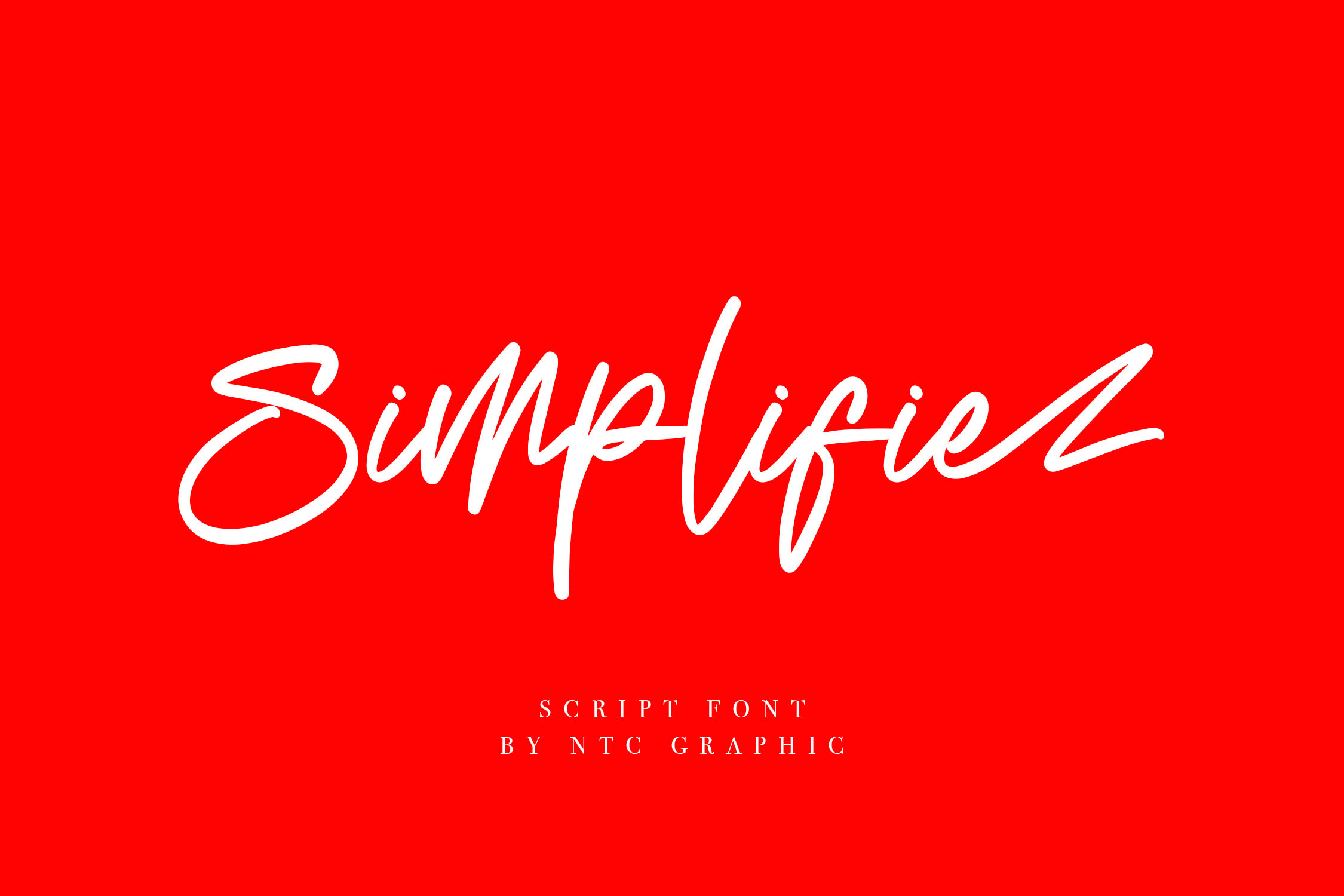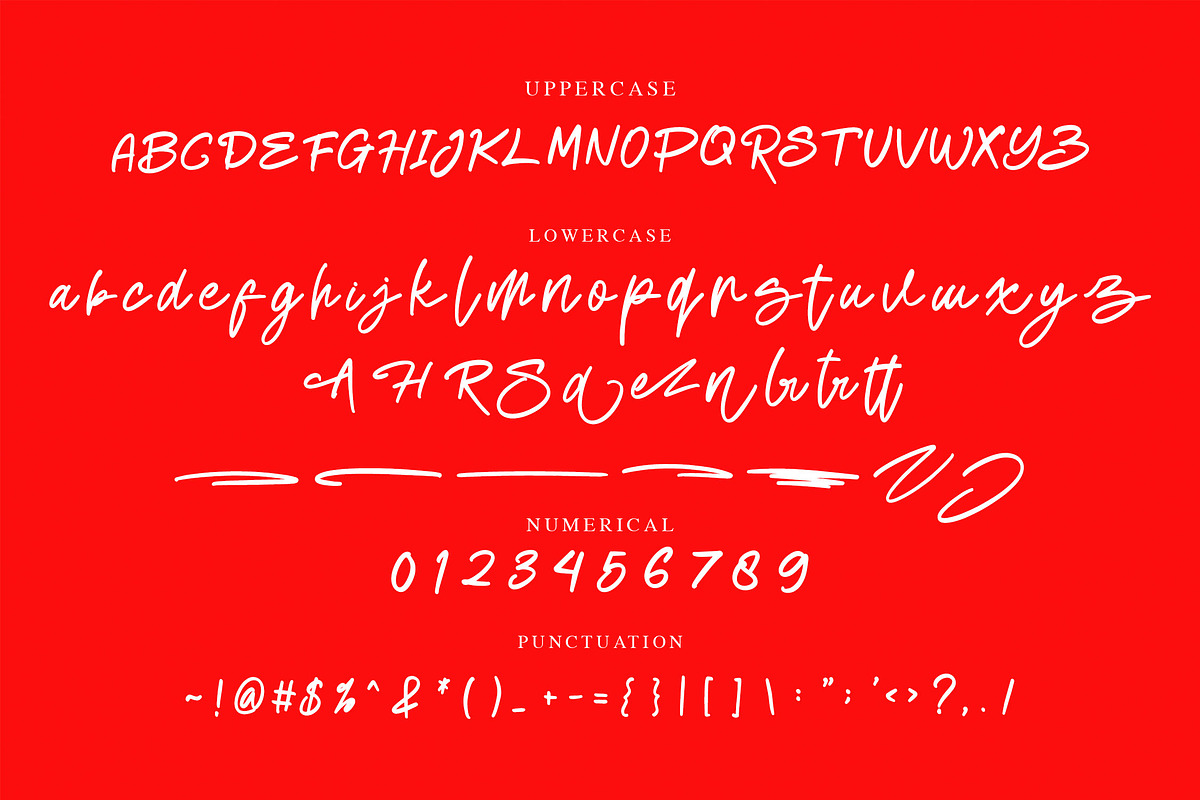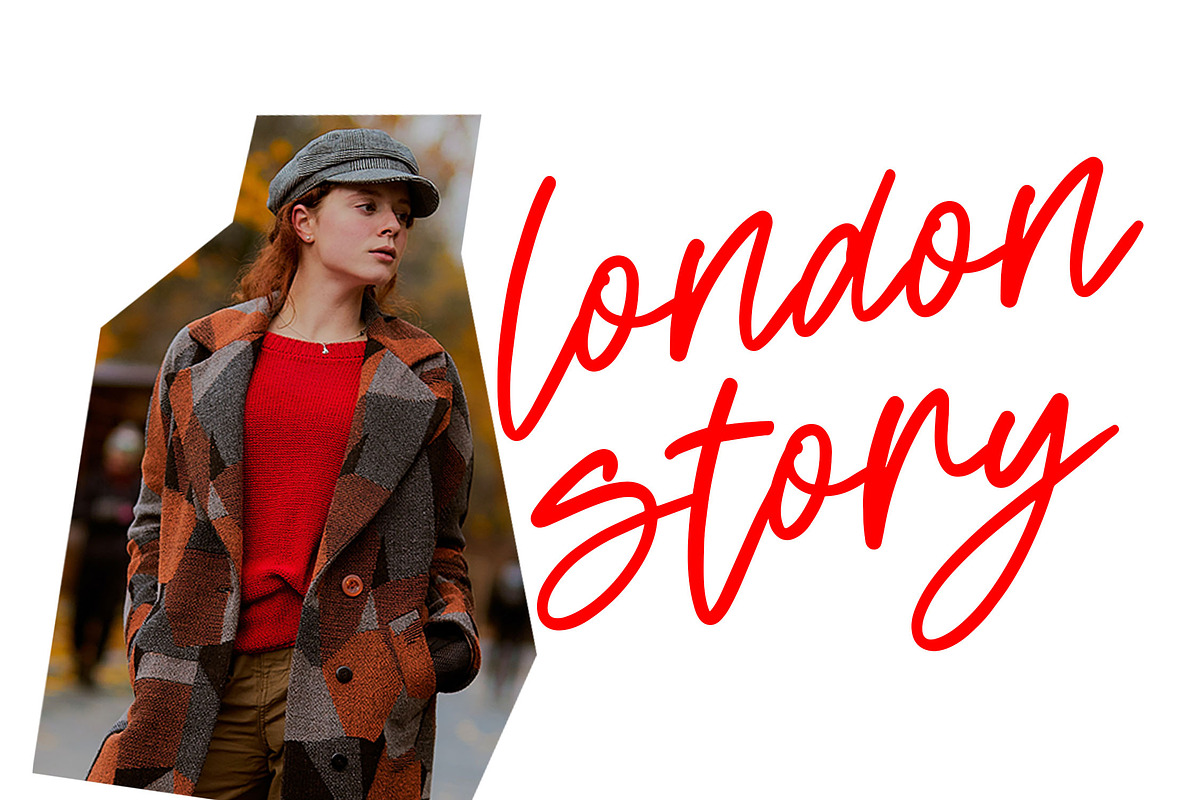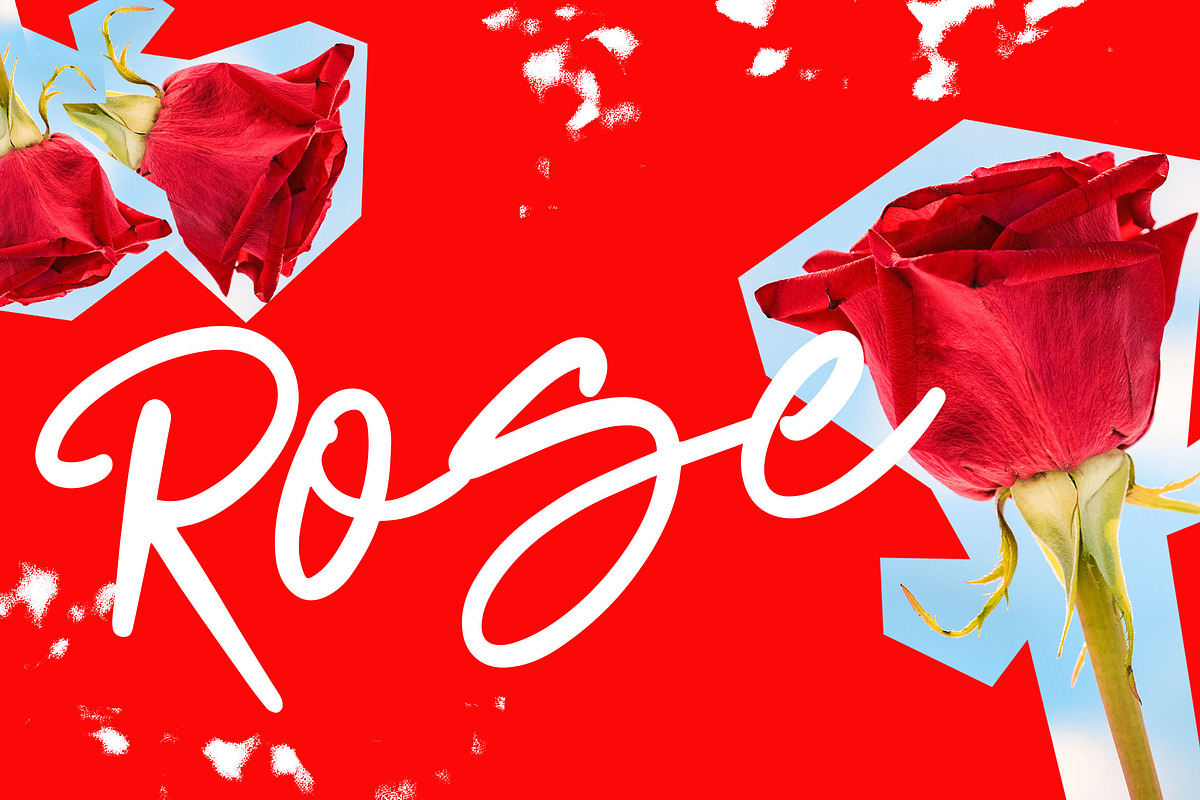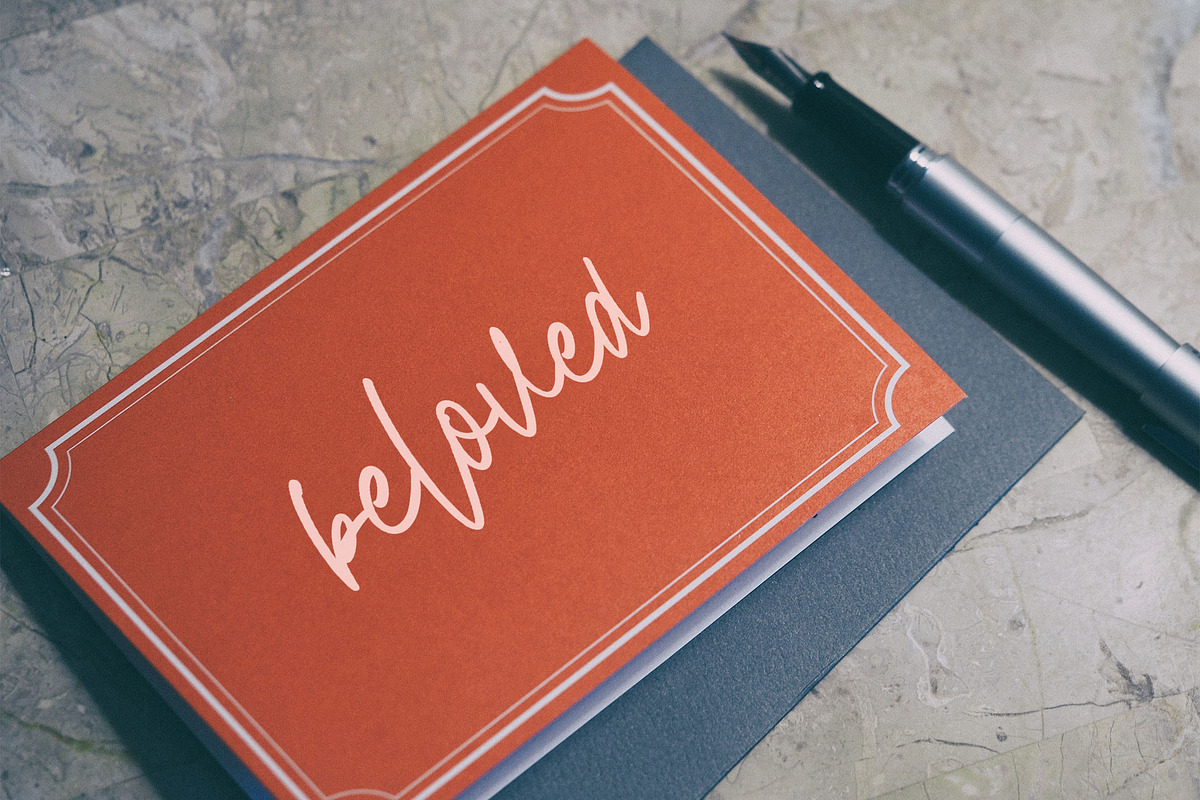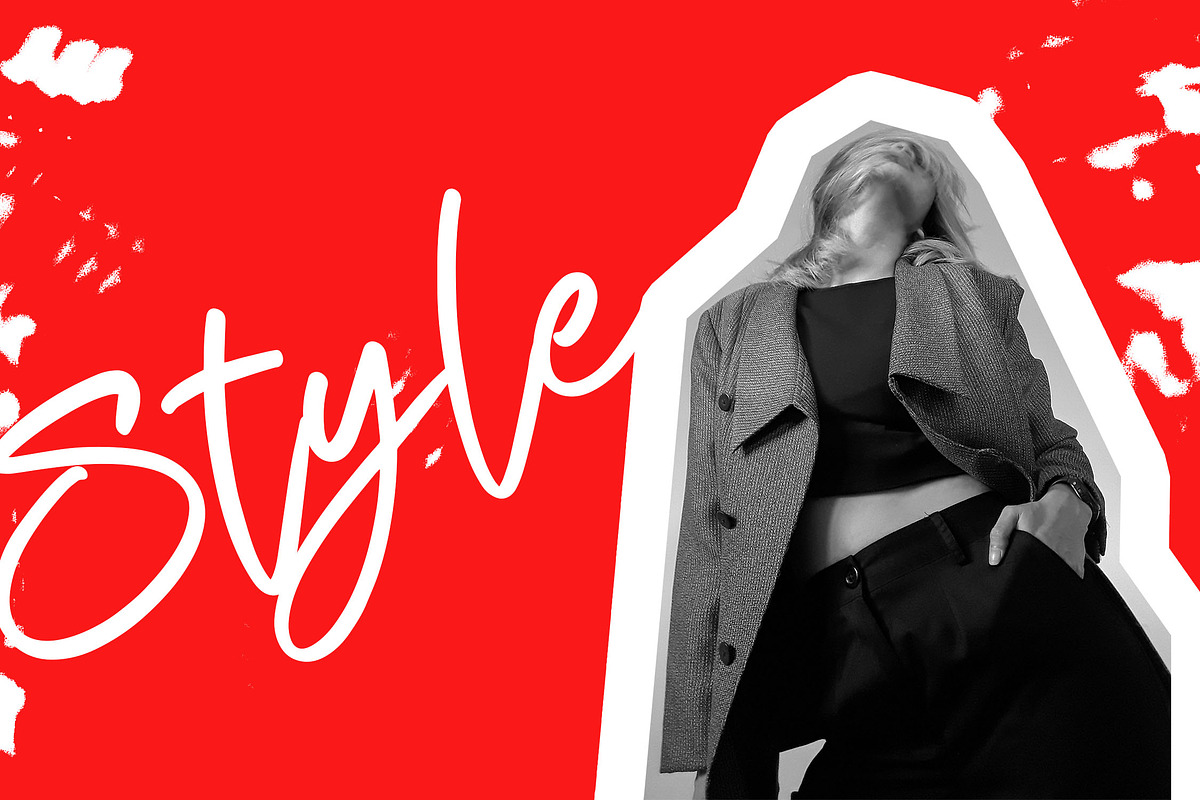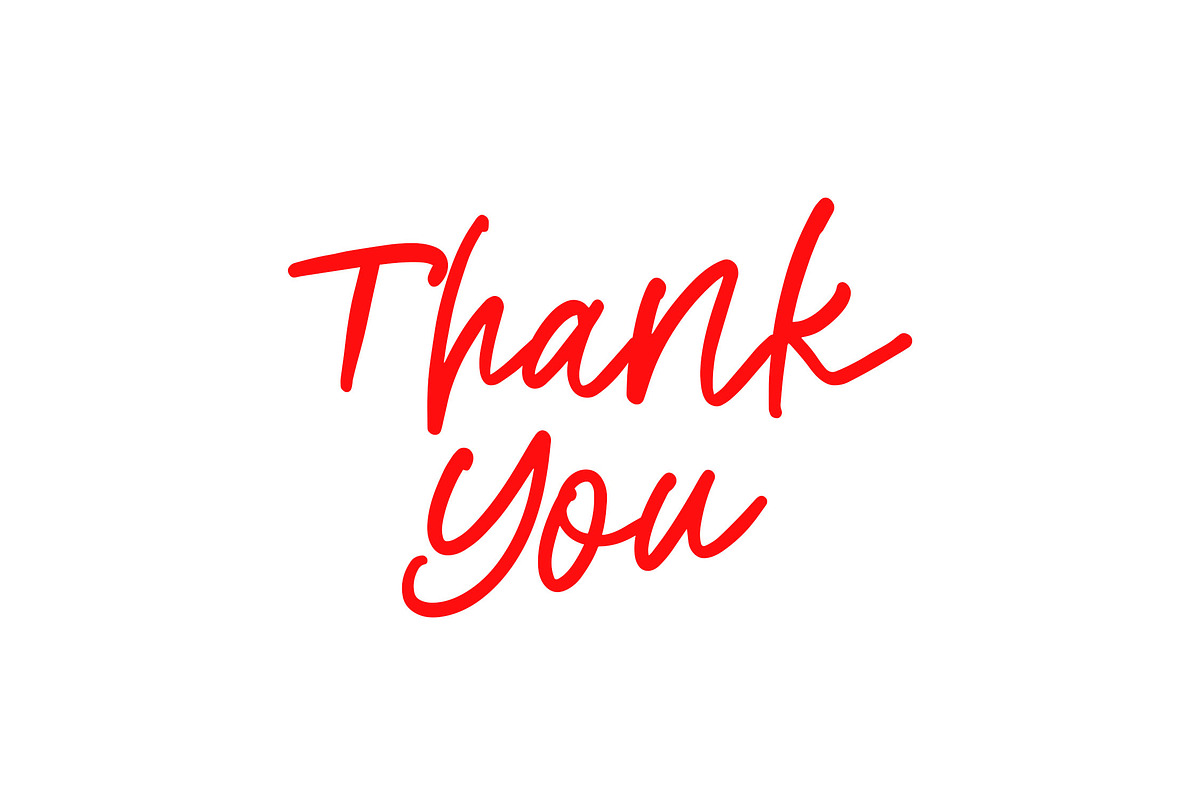
Simplifie - Script Font
DETAILS
Simplifie is an elegant script font with an elegant handwritten style. Is a font style that is made with scratches and curvature shapes font characters are very beautiful. Can be applied to support the graphic appearance of the product to be more attractive and unique. This font is very nice for designing previews and covers, logo designs, shirt designs, and other graphic needs.
- Stylistic Alternate